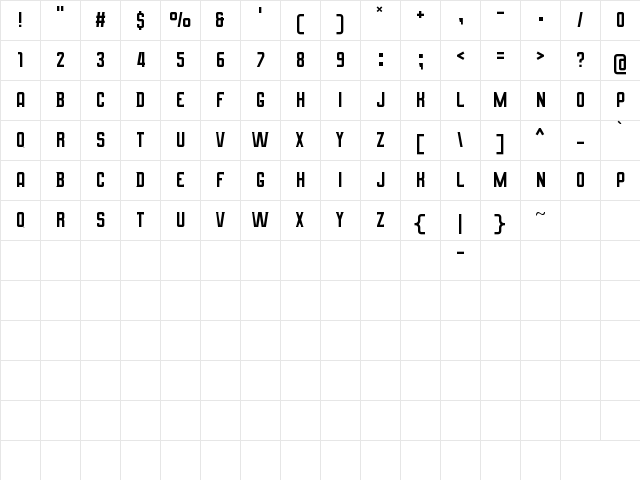
Complete Amsterdam Signature Duo Regular glyph index. Displaying only characters natively supported by Amsterdam Signature Duo Regular font.
Amsterdam Signature Duo is a composed and adaptable typeface that performs quietly and consistently across a wide range of design contexts.